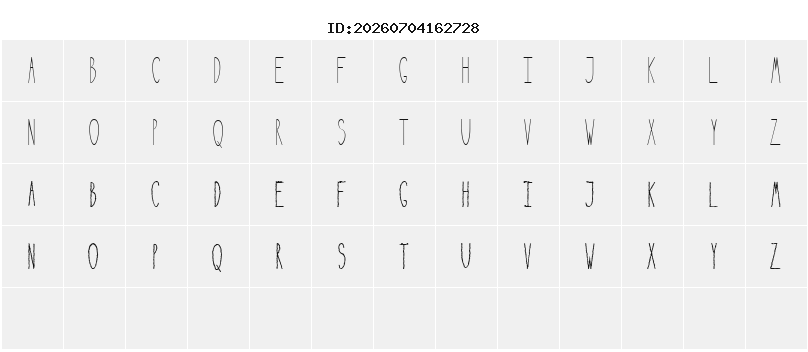
• Font Name: Ducatus
• Full Font Name: Ducatus Demo
About Ducatus.ttf
Ducatus.ttf is a modern, elegant sans-serif font designed for ultimate readability and visual harmony. Perfect for branding, headlines, web design, and print materials.